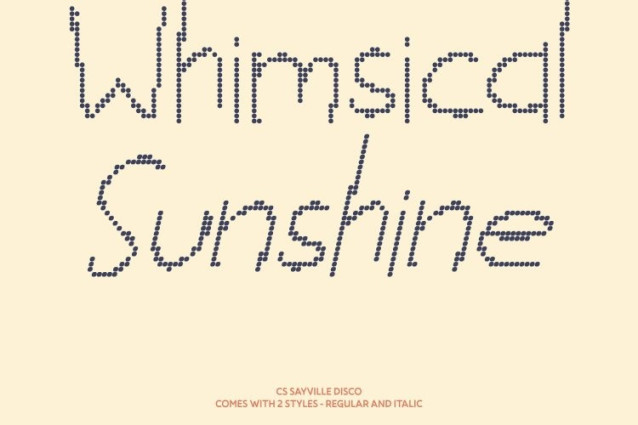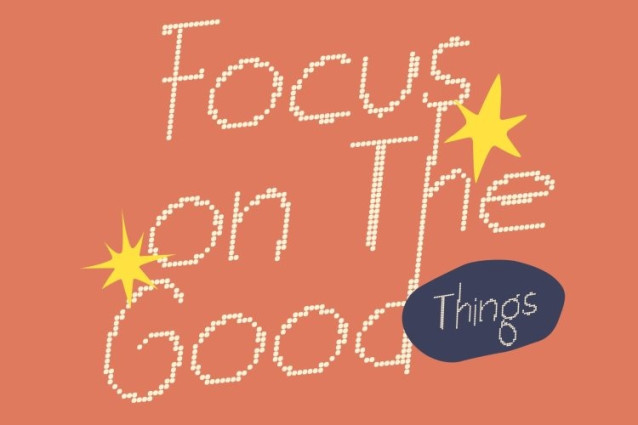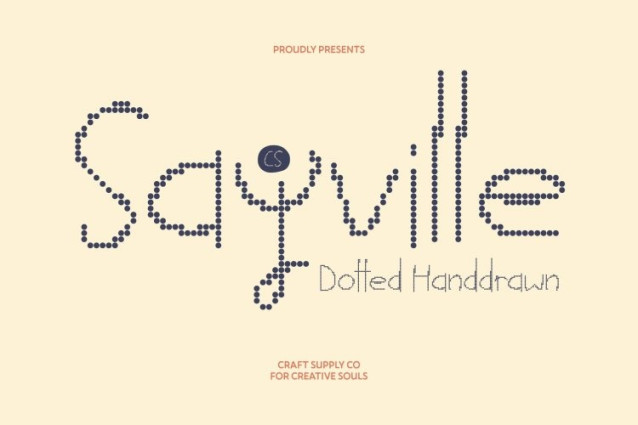
CS Sayville Disco Font
CS Sayville Disco Font – This font transforms the original casual handwriting sans into a lively dot-style display font. Each character is made up of small circular dots, giving the typeface a sparkling, cheerful rhythm that reflects fun, friendliness, and modern party energy. The natural flow of the handwriting is preserved, but the dot construction adds a playful, tactile feel that brings every word to life.
Readable Yet Expressive
Despite its playful dotted design, this font maintains clarity and legibility. The combination of structured sans forms and hand-drawn curves ensures that the text stays readable while radiating warmth and charm. Perfect for projects that need both approachable personality and visual impact.
Fun and Versatile for Creative Projects
From posters, social media graphics, and packaging to branding and invitations, this font adds a joyful, hand-crafted vibe. Its cheerful dotted appearance makes it ideal for youth-focused designs, playful editorial layouts, or any creative work that wants to feel lively, modern, and full of character.
A Friendly, Modern Display Font
This is the perfect balance of casual handwritten charm and disco-inspired sparkle. It brings lighthearted energy to headlines, titles, and decorative text, transforming ordinary text into a visually engaging and cheerful design statement.